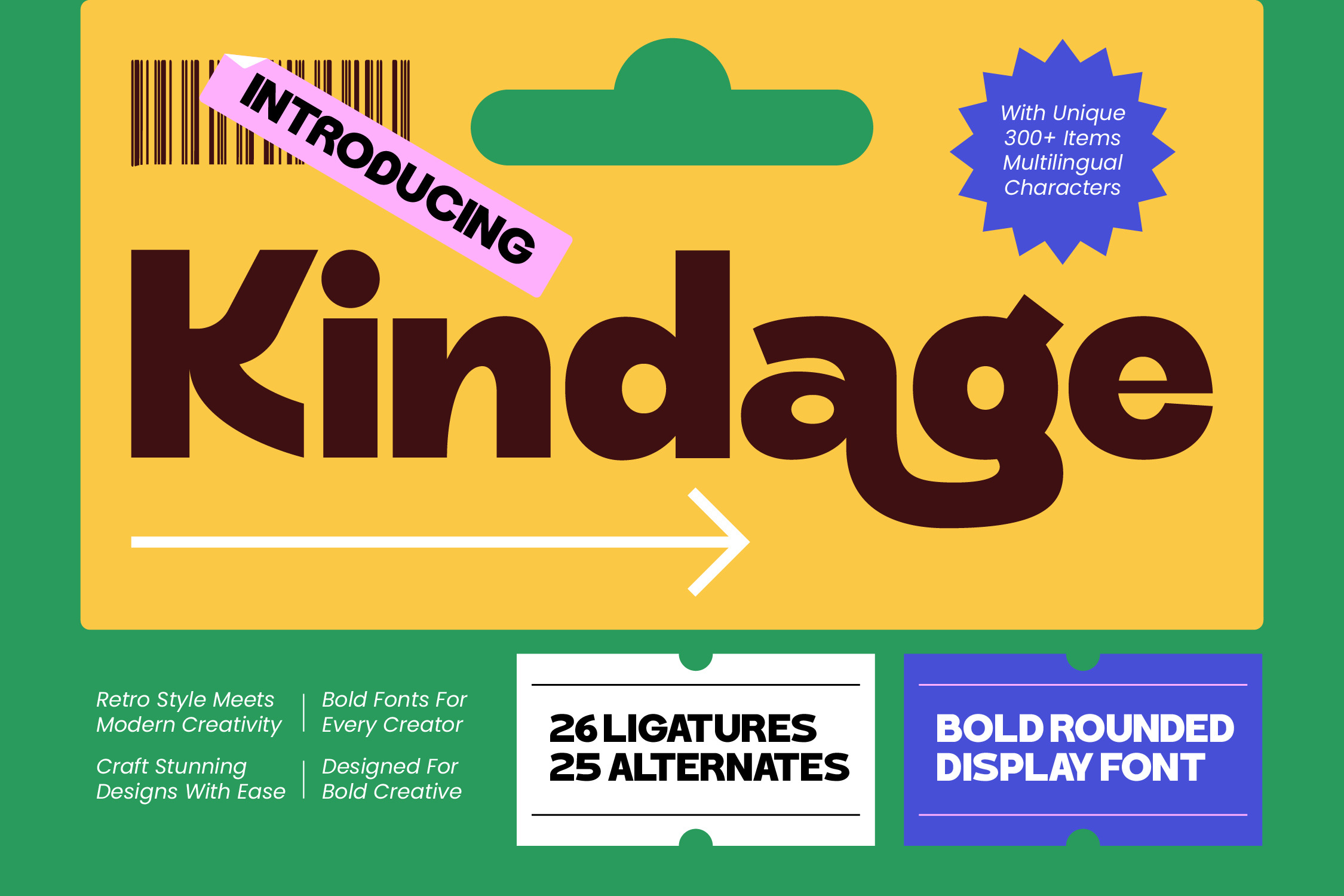
Kindage Bold Rounded Display Font
Kindage - Bold Rounded Display Font , Step into the world of Kindage, a masterpiece of soft geometry and vibrant personality designed to elevate your visual storytelling. This typeface balances a friendly disposition with a commanding presence that captures attention in an instant.
Born from a love for vintage grocery packaging and mid-century aestheticism, the inspiration behind this font lies in the intersection of nostalgia and modern minimalism. It captures the essence of a warm, inviting atmosphere, perfect for brands that want to feel established yet fresh.
The modern serif display attributes of this typeface deliver a massive branding impact while maintaining the sophisticated air of luxury typography. Even with its rounded edges, it provides the weight of a high-contrast serif and the clarity of a top-tier editorial font for discerning designers.
As part of the growing modern serif trend, this face offers a refreshingly soft alternative to sharp edges, fitting perfectly within the realm of character-driven typography. It is a staple for those seeking editorial display fonts that bring a human touch to digital environments.
Whether you are crafting a standout logo design or building a comprehensive branding identity, this typeface is versatile enough for high-end packaging and boutique editorial projects. It brings a modern elegance to a wedding suite and a bold edge to the latest fashion campaign.
This professional font package is enriched with custom ligatures and unique alternates to give your text a bespoke feel. It also includes decorative swashes and full multilingual support with international characters for seamless global implementation.